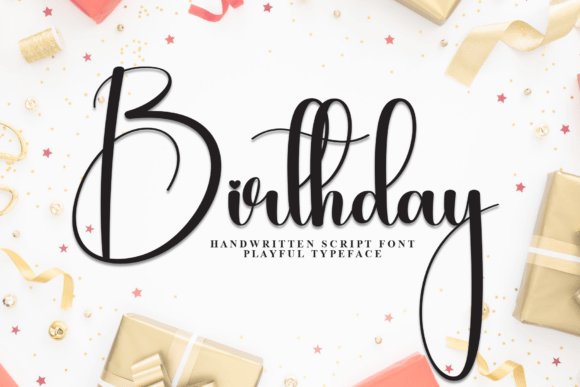
The Joy of Design: Celebrating with Birthday Font
There’s something special about designing a birthday invitation or logo – it’s a chance to capture the essence of a person’s personality and create something truly unique. As designers, we know that the right font can make all the difference in conveying warmth, elegance, and playfulness. And that’s where Birthday Font comes in – a stylish handwritten script font that brings a personal touch to any design.
Birthday Font is the perfect addition to any designer’s toolkit, offering a modern and sophisticated look that’s both elegant and playful. Its fluid strokes and charming curves make it ideal for logos, packaging, and invitations, allowing designers to add a touch of creativity and warmth to every project. Whether you’re designing for a special occasion or just want to add some personality to your brand, Birthday Font is the perfect choice.
Birthday Font Key Features
- Font Family: Birthday Font is a unique, hand-drawn font designed specifically for celebrating birthdays.
- Font Size: Supports font sizes ranging from 8 to 72 points, making it suitable for various design needs.
- Resolution: Optimized for high-resolution displays, ensuring crisp and clear text rendering.
- Unique Characteristics: Features playful, cursive lines and whimsical flourishes, adding a celebratory touch to any design.
- Font Style: Available in regular and bold weights, allowing designers to choose the perfect style for their project.
Birthday Font Review
Overall, I was excited to dive into the Birthday Font, but I have mixed feelings about its effectiveness. Let’s break it down.
- The playful, whimsical feel of the font makes it perfect for birthday invitations, party decorations, or any celebratory project.
- The font is highly customizable, with various color and size options available in most design software.
- The font’s unique style can add a personal touch to digital and print materials, making it stand out from more generic fonts.
- The font can be difficult to read in smaller sizes, which may limit its use in text-heavy projects.
- The font’s playful style may not be suitable for more formal or professional projects.
- The font’s uniqueness can also be a drawback, as it may not be easily recognizable or understood by some users.
The Birthday Font is a fun and creative addition to any designer’s toolkit. While it may have some limitations, its unique style and customization options make it a great choice for celebratory projects or those looking to add a personal touch. Just be mindful of its potential limitations when choosing the font for your project.
Use the Birthday Font to create eye-catching invitations, party banners, and decorations. You can also use it to add a celebratory touch to social media posts, emails, and other digital communications.
Alternative Birthday Fonts for Designers
Cursive Script
Cursive Script is a elegant and flowing font suitable for formal birthday invitations, wedding invitations, and other special occasions. It’s ideal for designers who want to create a sophisticated and classic look. Compared to Birthday Font, Cursive Script is more polished and refined, making it perfect for high-end designs.
Playfair Display is a luxurious and ornate font perfect for creating a sense of drama and celebration. It’s ideal for designers who want to create a bold and eye-catching birthday design. Compared to Birthday Font, Playfair Display is more elaborate and decorative, making it suitable for formal events and special occasions.
Great Vibes is a modern and playful font suitable for casual birthday invitations and social media graphics. It’s ideal for designers who want to create a fun and laid-back atmosphere. Compared to Birthday Font, Great Vibes is more relaxed and casual, making it perfect for everyday designs.
Carolyna Pro is a elegant and modern font suitable for both formal and casual birthday designs. It’s ideal for designers who want to create a sophisticated and contemporary look. Compared to Birthday Font, Carolyna Pro is more versatile and adaptable, making it suitable for a wide range of designs and occasions.